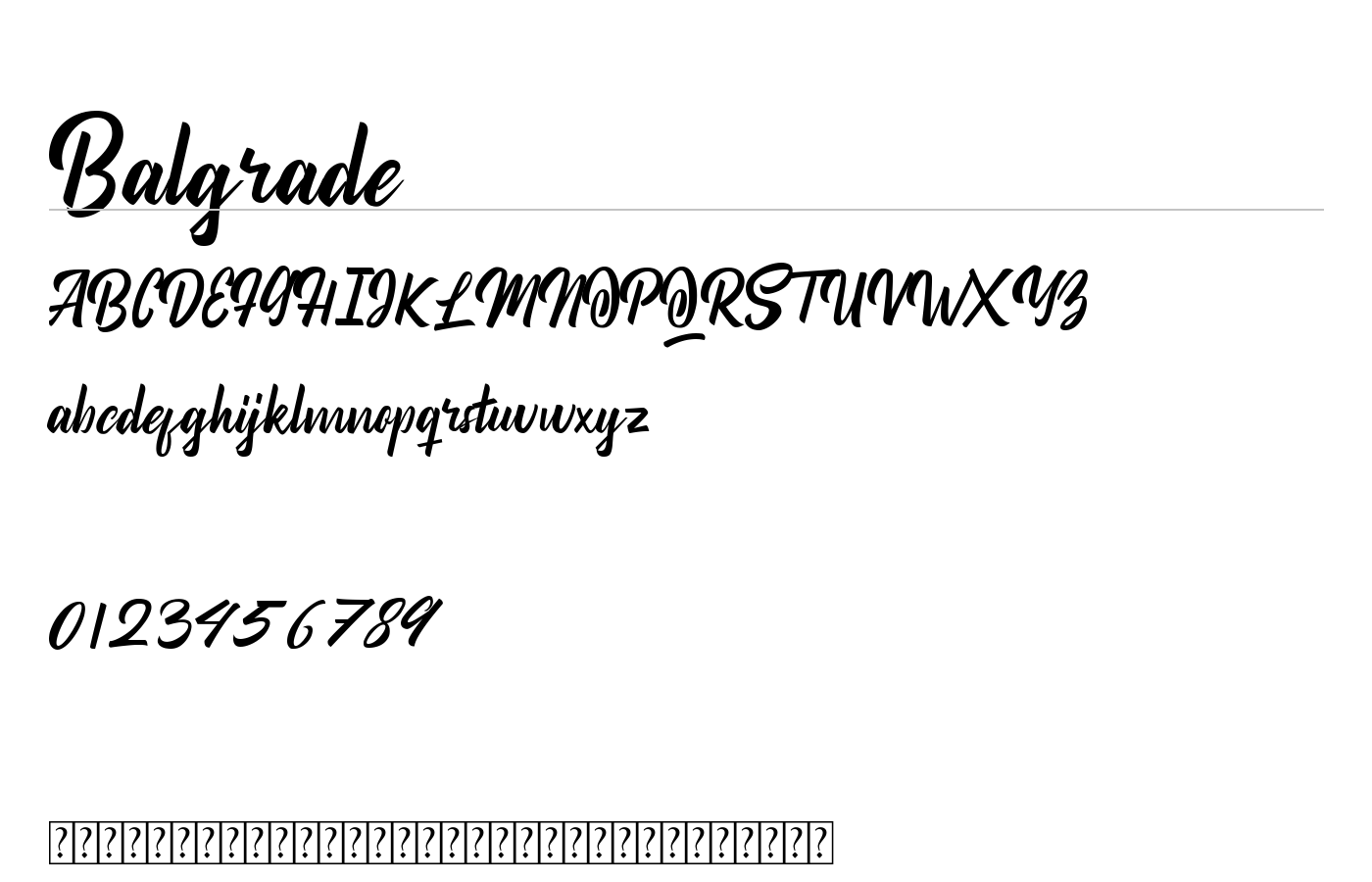
Balgrade is a stylish script font featuring fluid, connected letterforms with a smooth, brush-like quality. Its moderately bold weight and elegant curves give it a lively and expressive personality, making it ideal for branding, logos, and creative headlines where a personal, dynamic touch is desired. This font works well in designs that aim for a modern yet approachable and artistic feel.
Balgrade Font
About Balgrade Font
| Font family | Balgrade Font |
| Designer | Echa fajar romadhon |